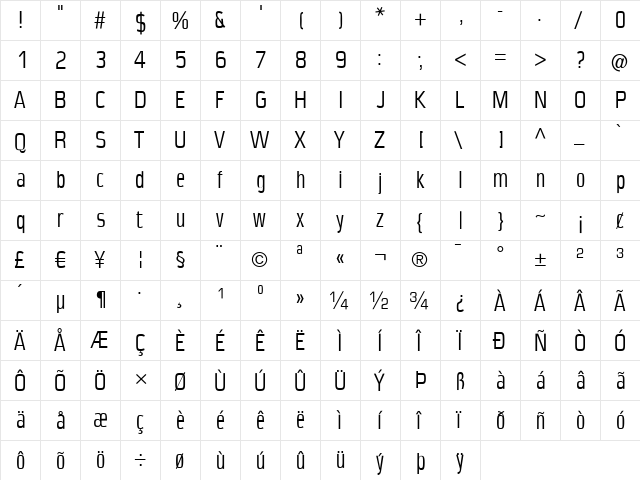
CondensansPaneurope Regular
Design Context for CondensansPaneurope Typeface
CondensansPaneurope is a composed and adaptable typeface that performs quietly and consistently across a wide range of design contexts. The condensed width makes it efficient for tight spaces without sacrificing legibility.